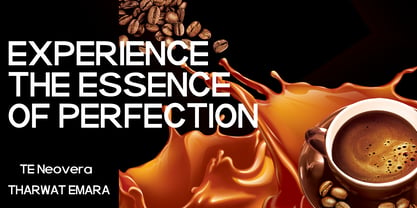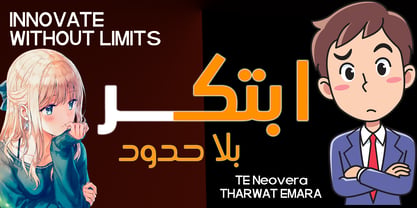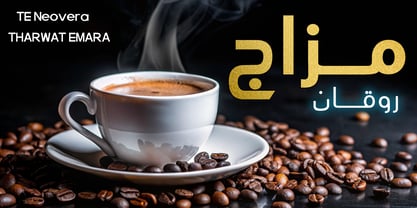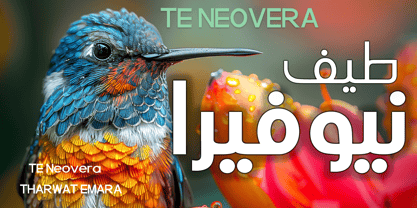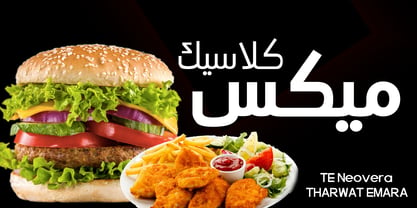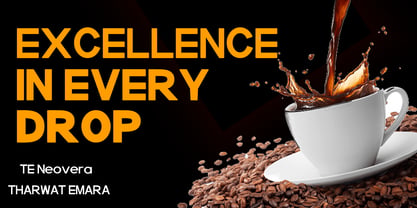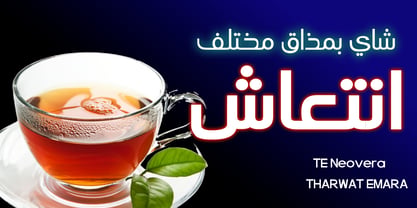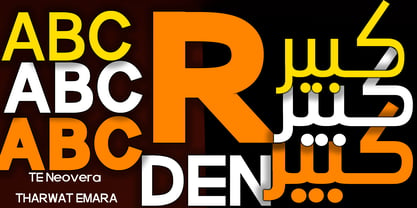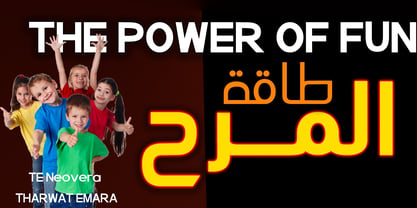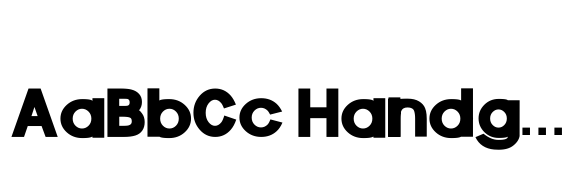
TE Neovera TharwatEmara
La famille de polices TE Neovera TharwatEmara a été conçue par Tharwat Mohamed Emara et publiée par Tharwat Emara. TE Neovera TharwatEmara contient 3 styles et options de package familial. En savoir plus sur cette famille
TE NEOVERA
TE NEOVERA is a modern display typeface that combines bold visual impact with contemporary elegance. Built on clean geometric foundations and carefully refined proportions, it delivers a distinctive and professional appearance across a wide range of creative applications.
Designed for modern branding and high-impact communication, TE NEOVERA is ideal for logos, visual identities, advertising campaigns, social media content, packaging, posters, and editorial design. Its strong character shapes create a confident presence while maintaining excellent readability.
The family includes three professional weights (Light, Regular, and Bold), giving designers the flexibility to create consistent and versatile typographic systems for both digital and print projects.
Features:
• 3 Weights: Light, Regular & Bold
• Multilingual Language Support
• Uppercase & Lowercase Characters
• Numbers & Punctuation
• Professional Kerning
• Clean Geometric Construction
• Optimized for Print & Digital Use
Perfect for:
• Logos & Brand Identity
• Headlines & Advertising
• Social Media Graphics
• Packaging Design
• Posters & Editorial Layouts
• Technology, Fashion & Creative Projects
TE NEOVERA is designed for creators and brands seeking a modern, powerful, and memorable typographic voice that stands out across every platform.